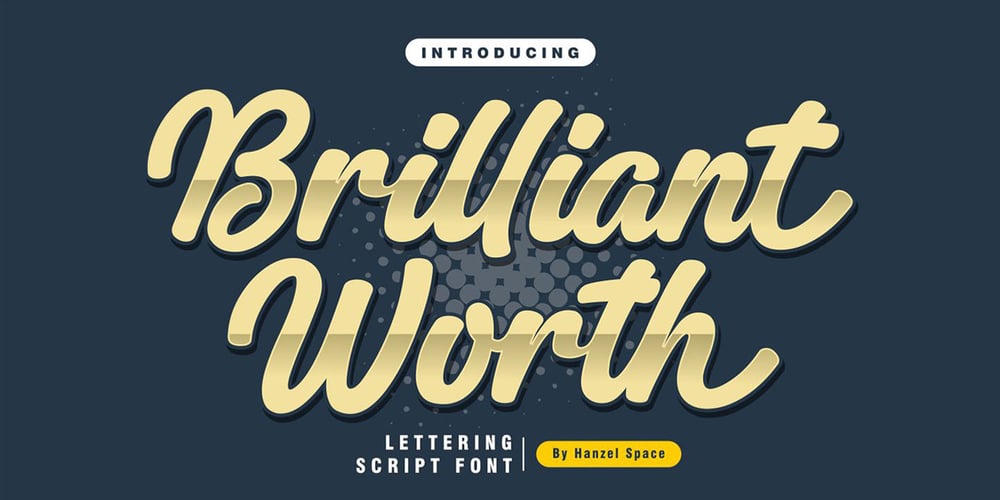
Brilliant Worth
Brilliant Worth font
Brilliant Worth Font Family was designed by Hanief Farandi and published by Hanzel Space. Brilliant Worth contains 1 styles and family package options. Brilliant – Lettering Script FontWe’re Introducing the “Brilliant” Font we created in 2023. To talk more about the character of this font, please see a preview of how each Glyph in the font will look when applied to a design. This font has a vintage touch and a modern look to each letter, slightly rounded and neat shapes in each curve, plus a Stylistic feature at the end of the letters.We design this font in such a way that it is suitable when used for design projects so that it looks very attractive. And you can also use this font for logos, branding, brochures, names on product packaging and so on.Uppercase & Lowercase, Numeral, Punctuation, Miltilingual, Swash